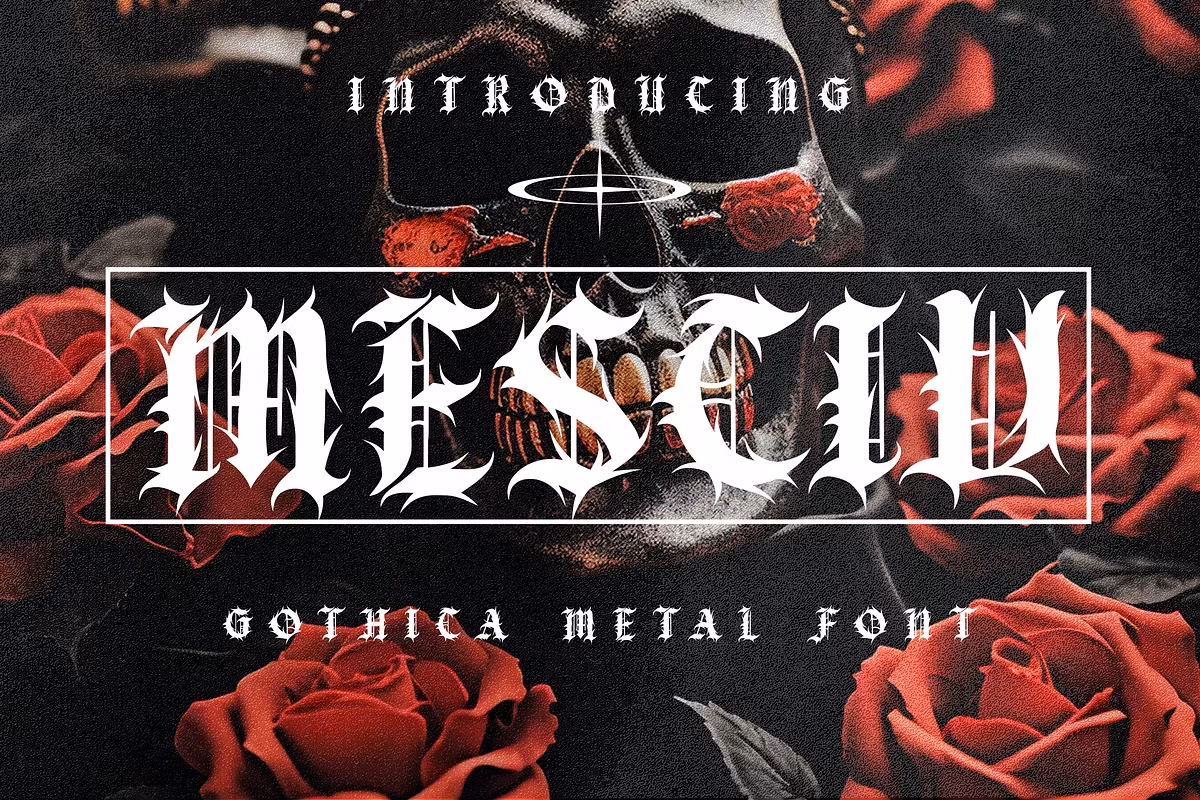
Mesciv Metal Blackletter Font is perfect for metal band logos, dark music promotions, gothic fashion branding, horror movie titles, occult-themed designs, medieval-inspired projects, tattoo shop signage, heavy metal merchandise, dark fantasy book covers, underground music events, aggressive brand identities, and powerful artistic expressions.
Mesciv Metal Blackletter Font is exciting because it channels the raw power and dark intensity of metal culture through commanding blackletter forms that embody strength, rebellion, and gothic mystique with uncompromising visual impact. This formidable typeface features bold, angular characters with sharp edges and medieval heritage that creates an atmosphere of power and intimidation. The font's dark aesthetic speaks directly to audiences who appreciate gothic beauty, metal culture, and the timeless appeal of blackletter craftsmanship.
This commanding typography solution transforms ordinary text into dark artistic statements through its authentic blackletter heritage and metal-inspired design language. Mesciv Metal Blackletter Font Free Download enables designers and metal enthusiasts to access premium gothic typography that instantly adds power, darkness, and medieval mystique to any creative project. The font's meticulously crafted letterforms ensure maximum visual impact while maintaining readability and authentic blackletter character.
Metal bands, gothic brands, and dark culture businesses trust Mesciv Metal Blackletter Font for its ability to communicate strength, rebellion, and dark aesthetic values to audiences who appreciate gothic artistry and metal culture authenticity. The typeface's powerful construction performs exceptionally well across various applications, from intimate band merchandise to large-scale concert promotions. Its extensive character support includes multilingual capabilities and gothic design elements that enhance dark brand presentations.
The design heritage behind Mesciv Metal Blackletter Font draws from medieval manuscript traditions, gothic architecture, and the powerful visual language of metal culture that celebrates darkness, strength, and artistic rebellion. This darkness-focused approach creates a font that feels genuinely gothic while maintaining contemporary relevance across different metal subcultures and dark brand expressions.
Whether creating metal band identities, gothic fashion brands, or dark artistic projects, this blackletter font delivers exceptional results that command respect and embody dark power. Download Mesciv Metal Blackletter Font today and discover how premium gothic typography can transform your design projects into powerful expressions of metal culture, gothic beauty, and the uncompromising strength that defines the dark aesthetic tradition.